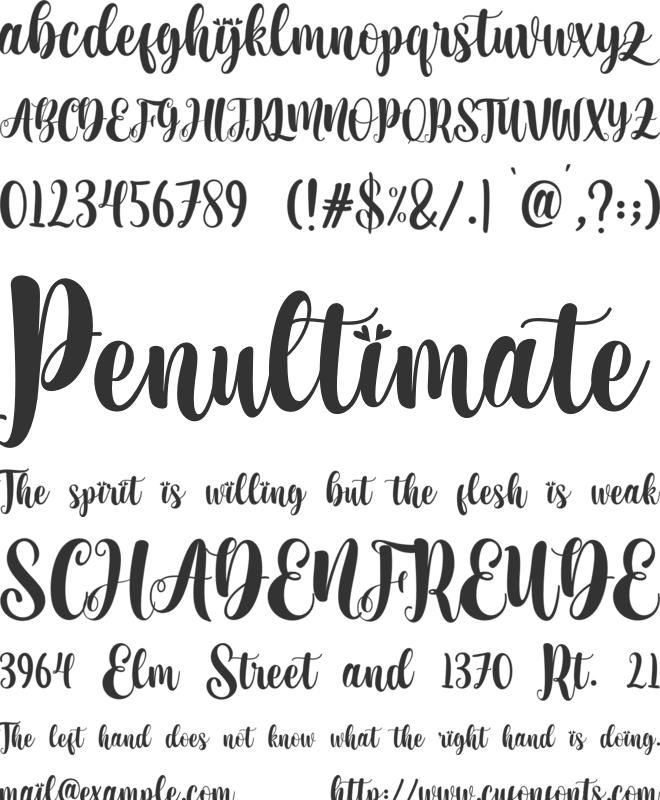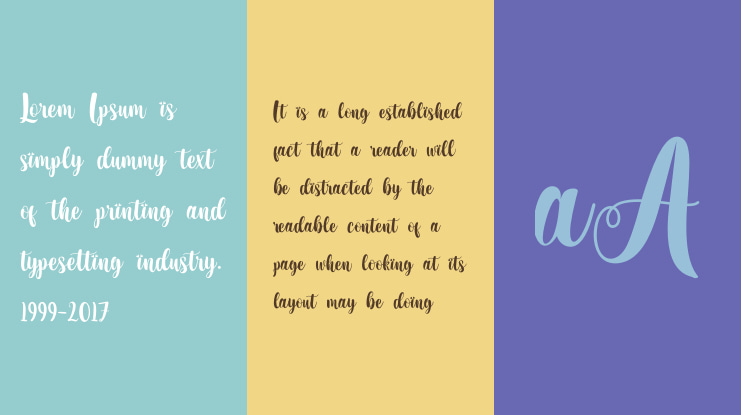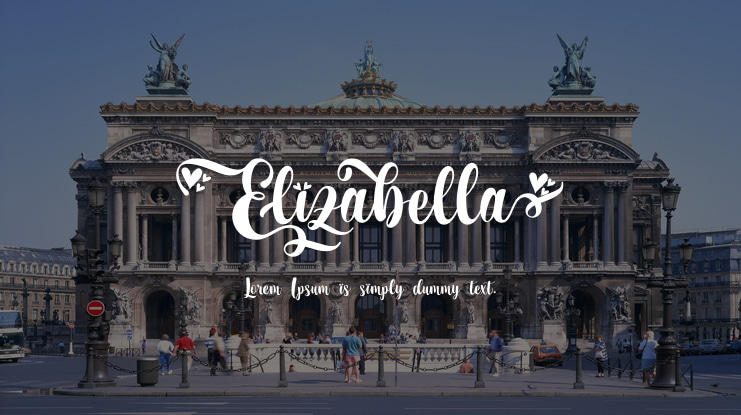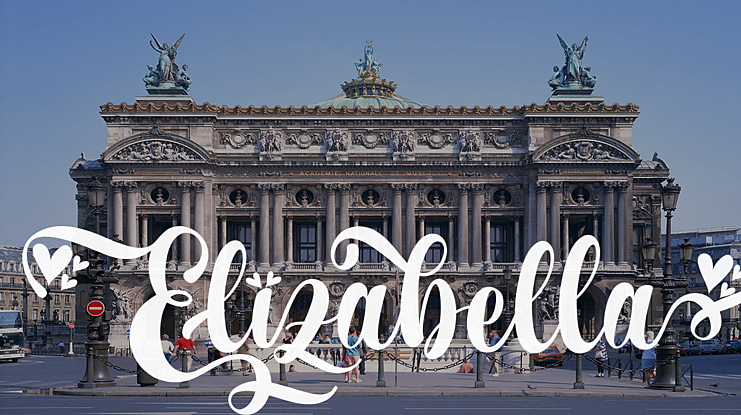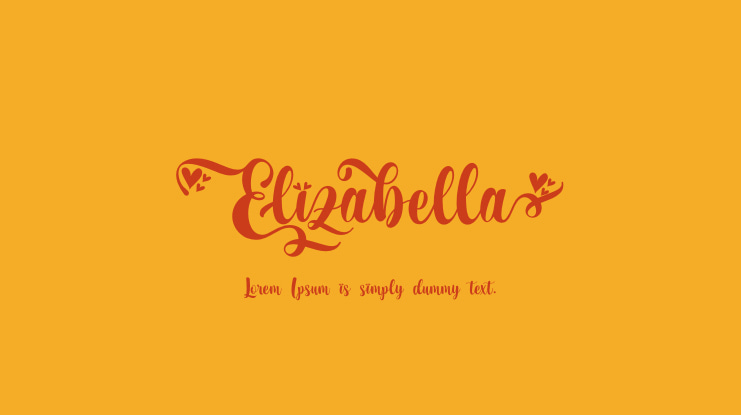
Elizabella Font
We are introducing our new font’s product ”Elizabella” from our studio Elevatype Co
Elizabella is modern calligraphy script font that very unique with ”love” accent in the glyph. this font is great for your design project like banner, poster, invitation, etc. I hope all of you like this font